1. Introduction: Why Cute Fonts Matter in Branding
Typography is one of the most powerful design elements that can instantly influence how people perceive your brand. Among the wide variety of typefaces available, cute fonts for branding have gained massive popularity in recent years. Their playful, friendly, and approachable style makes them perfect for brands targeting younger audiences, lifestyle products, or businesses that want to appear warm and fun.
Whether you’re building a café logo, designing packaging for skincare, or creating a social media campaign, the right cute font can elevate your visual identity and make it unforgettable.
2. What Are Cute Fonts?
Cute fonts are typefaces characterized by their playful strokes, rounded shapes, and friendly appeal. Unlike minimalist or corporate-style fonts, cute fonts often include handwritten, bubbly, or cartoon-inspired elements.
Some characteristics include:
- Rounded corners instead of sharp edges
- Playful curves and loops
- Handwritten or doodle-like style
- Fun decorative elements such as hearts, stars, or swirls
These qualities make them highly effective for branding projects that need to convey friendliness, creativity, or charm.
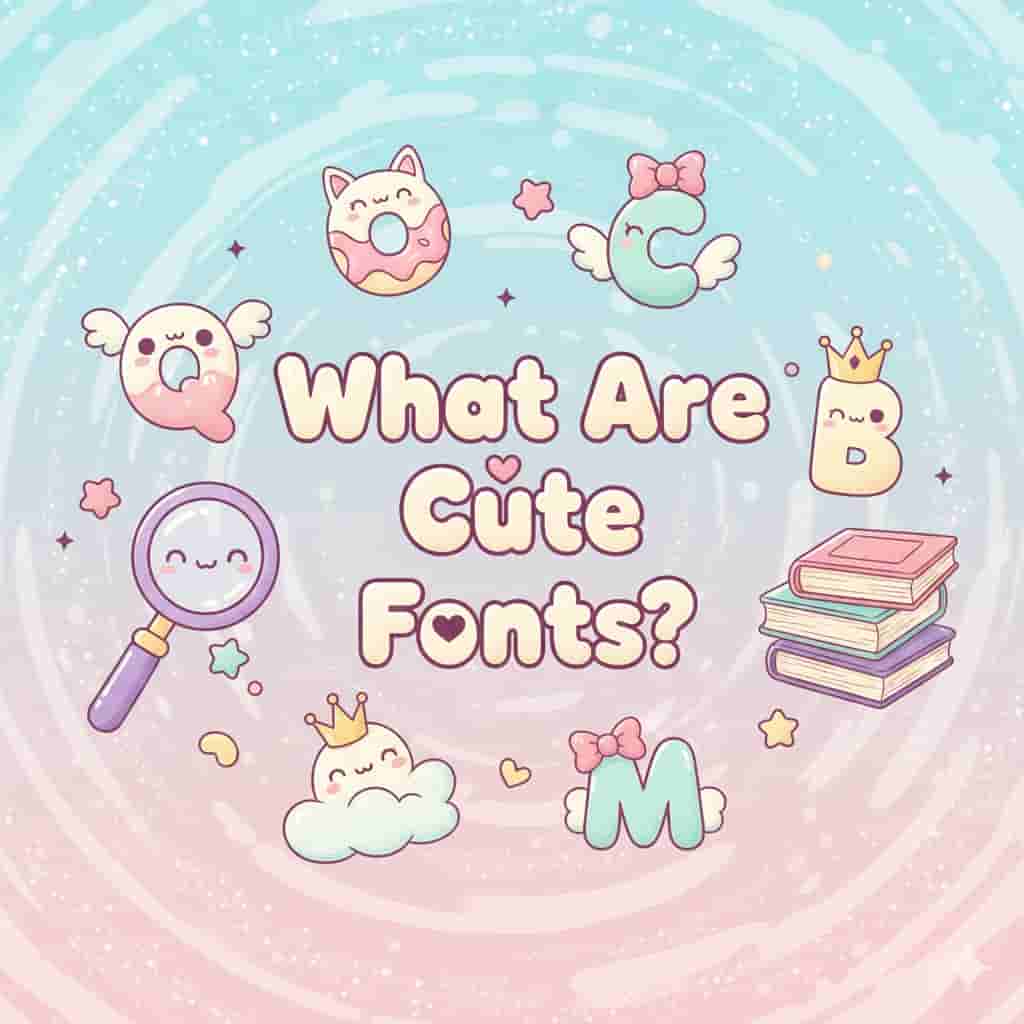
3. The Psychology Behind Cute Fonts in Branding
Typography psychology plays a significant role in branding. According to design experts, fonts can trigger emotional responses even before people read the actual words (source).
- Rounded fonts : Often associated with friendliness, safety, and approachability.
- Handwritten fonts : Suggest creativity, authenticity, and personalization.
- Playful fonts : Create a sense of joy, positivity, and youthfulness.
For brands, this means choosing cute fonts can make your company feel more welcoming and approachable, especially for audiences like children, families, or lifestyle enthusiasts.
4. When to Use Cute Fonts for Branding
Cute fonts are not suitable for every industry, but they work exceptionally well in certain niches:
- Children’s brands (toys, clothing, educational products)
- Food & beverage (ice cream, bakeries, cafes)
- Beauty & lifestyle (cosmetics, skincare, wellness)
- Events & creative industries (weddings, parties, crafts)
- Social media & influencers (Instagram posts, YouTube thumbnails, Pinterest graphics)
However, for formal industries such as law, finance, or corporate consulting, it’s best to use them sparingly or only in marketing campaigns where fun is the goal.
5. Examples of Cute Fonts for Different Industries
Here are a few examples of how cute fonts for branding can be applied across industries:
- Bakery Logo → A bubbly script font can make the brand feel warm and delicious.
- Children’s Clothing → A rounded sans serif font can reflect safety and playfulness.
- Beauty Product Packaging → A handwritten font can emphasize natural, handcrafted vibes.
6. Best Cute Fonts You Can Use Today
- Zanolia display Font – Perfect for playful logos and packaging.
- Love Saturn Display Font – A cheerful handwritten font for kids and lifestyle brands.
- Yummy Pizza Display Font – Bold, fun, and ideal for food or beverage branding.
- Begainful display Font – Elegant yet cute, great for events and beauty products.
Each of these fonts has been designed to give your brand a unique, fun, and engaging personality.
7. Tips for Pairing Cute Fonts with Other Typography
Using just one cute font can be overwhelming, so pairing is key. Here are some tips:
- Combine cute script fonts with a clean sans serif for balance.
- Use bold cute fonts for headlines and a simple serif for body text.
- Limit the number of different fonts to 2–3 to avoid clutter.
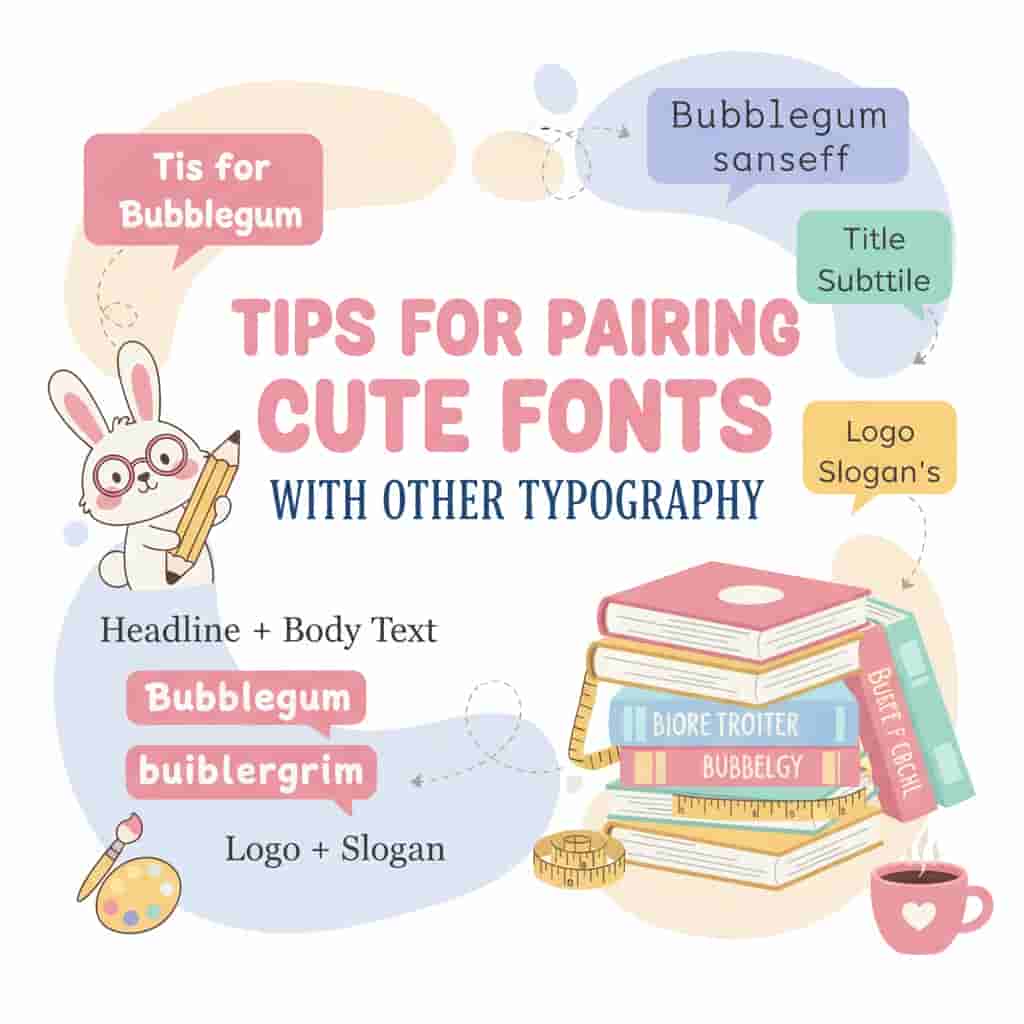
8. Where to Find High-Quality Cute Fonts
Free font websites can be tempting, but for professional branding, it’s best to use licensed fonts. This ensures originality and avoids copyright issues.
- Premium font shop : Raisproject Fontsoffers a wide variety of professionally designed cute fonts.
9. Conclusion
In the world of branding, typography speaks louder than words. Cute fonts for branding can instantly transform your brand identity into something fun, warm, and memorable. By choosing the right font and pairing it thoughtfully, you can attract your target audience and make your brand stand out in a crowded market.